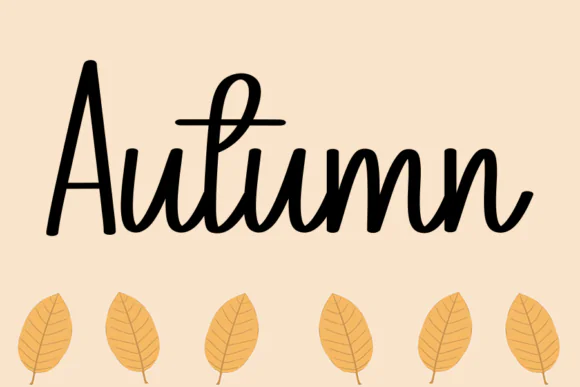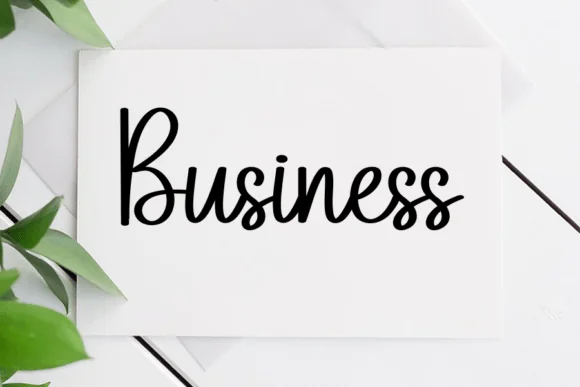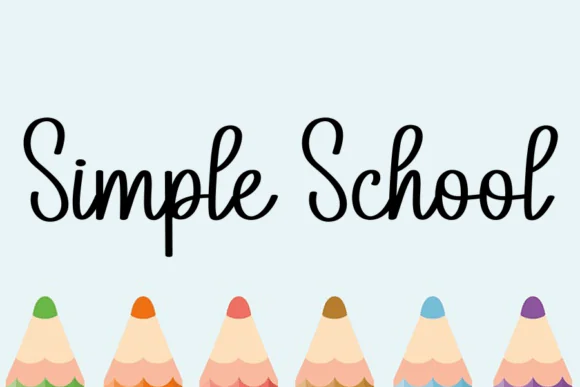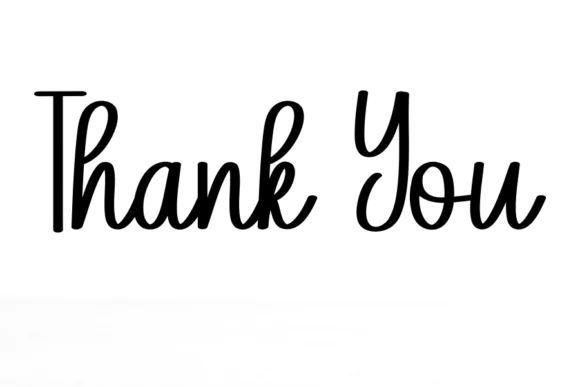
Create soft, romantic, and elegant designs with Honey Font, a sweet cursive handwritten typeface made to add a gentle and joyful touch to your creative projects. Its smooth handwritten style gives your designs a fancy yet casual appearance, making it perfect for both formal and everyday creative use.
Honey Font is ideal for designers, wedding creators, boutique brands, small business owners, crafters, digital sellers, and print-on-demand creators who want a charming handwritten font for stylish typography. It works beautifully for branding, logos, wedding designs, greeting cards, fashion projects, lookbooks, marketing promotions, invitations, product labels, packaging, quote designs, and social media graphics.
With its warm and romantic personality, Honey Font helps your typography feel personal, graceful, and memorable. Whether you are creating a wedding invitation, boutique logo, greeting card, feminine brand design, or promotional graphic, this font adds a polished handwritten finish to your project.
Design Style:
Sweet, cursive, handwritten, gentle, joyful, romantic, elegant, fancy, casual, feminine, graceful, stylish, soft, and charming.
Use Honey Font to give your designs a beautiful handwritten personality and create typography that feels romantic, elegant, and easy to love.